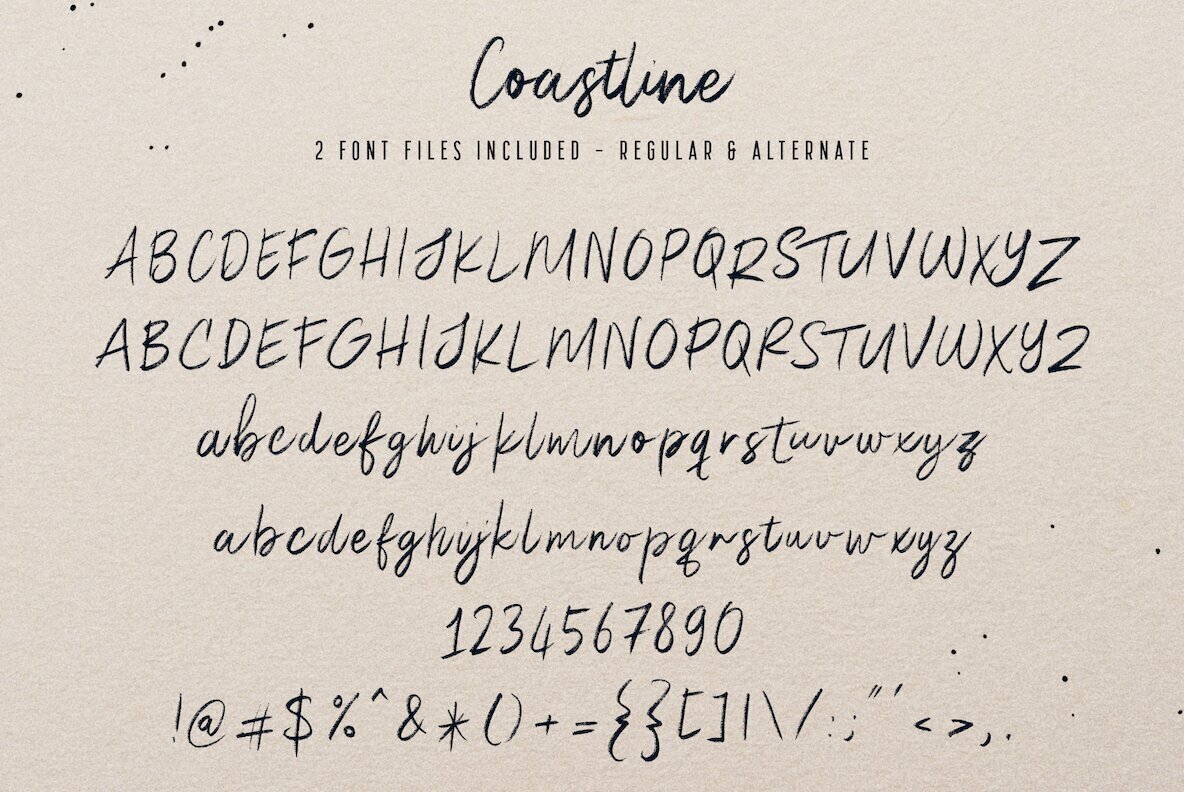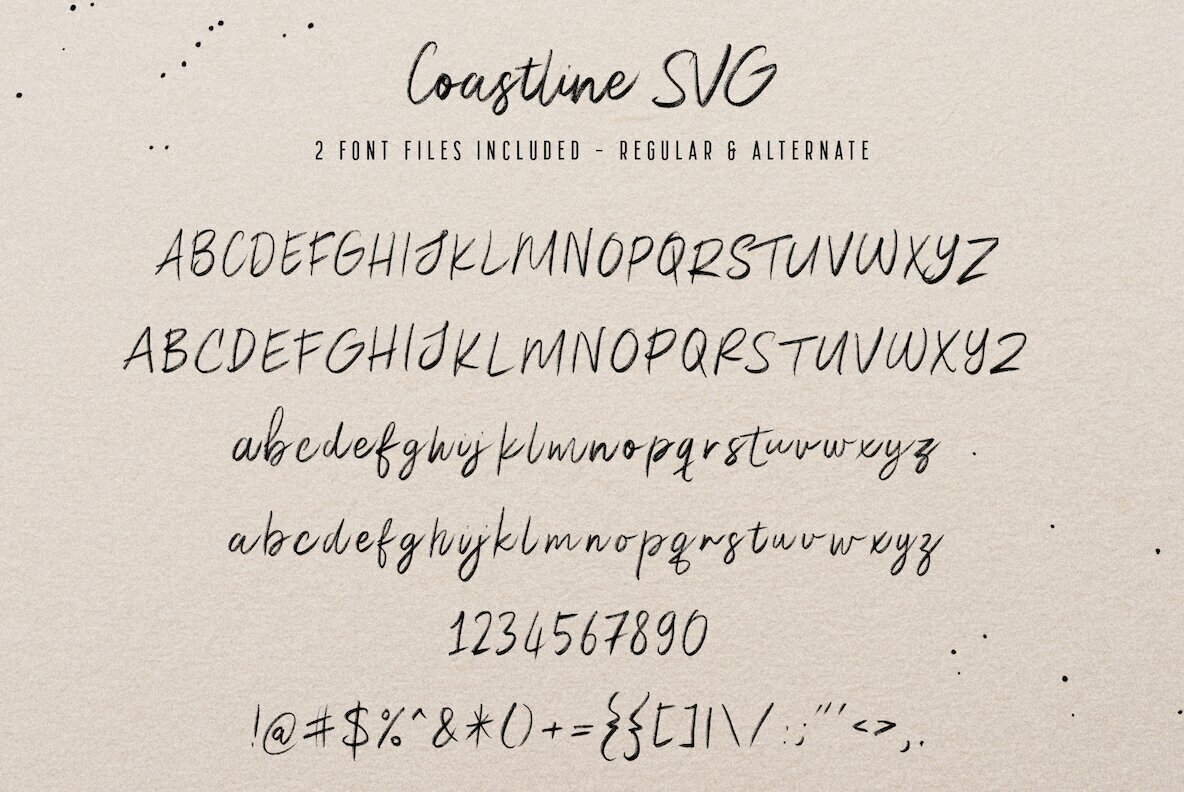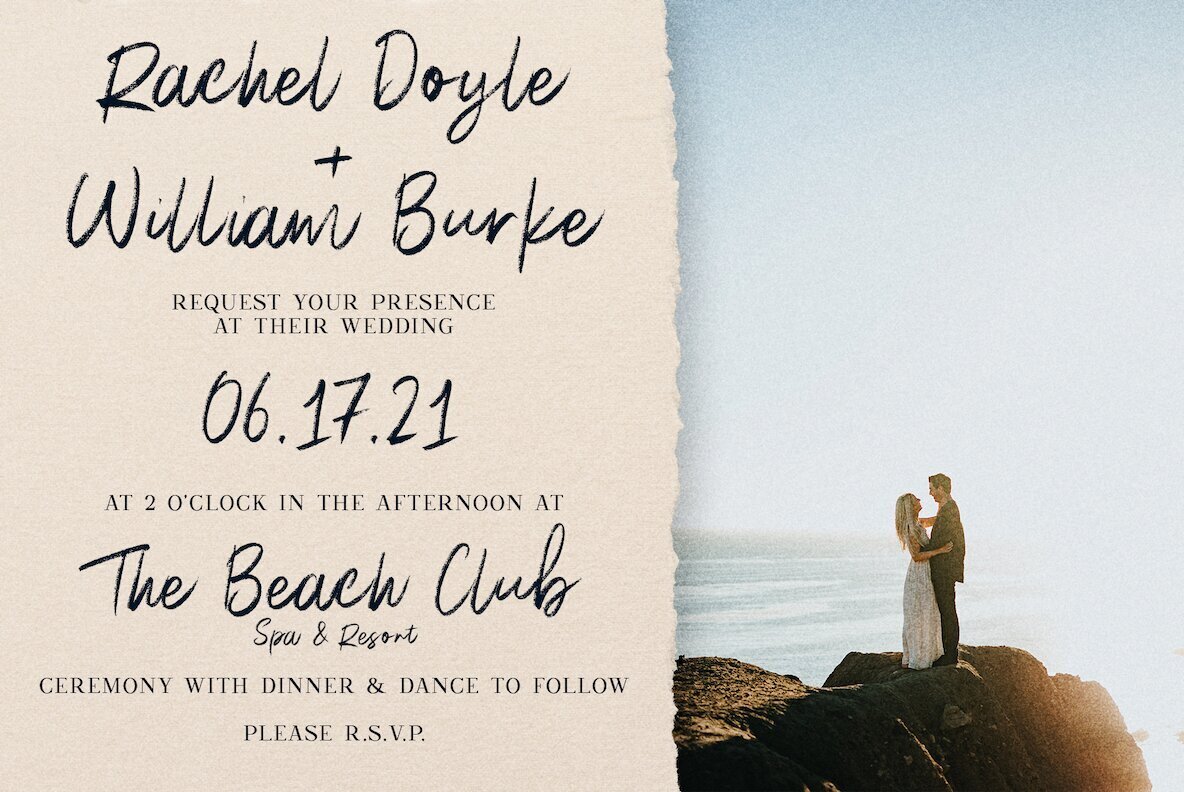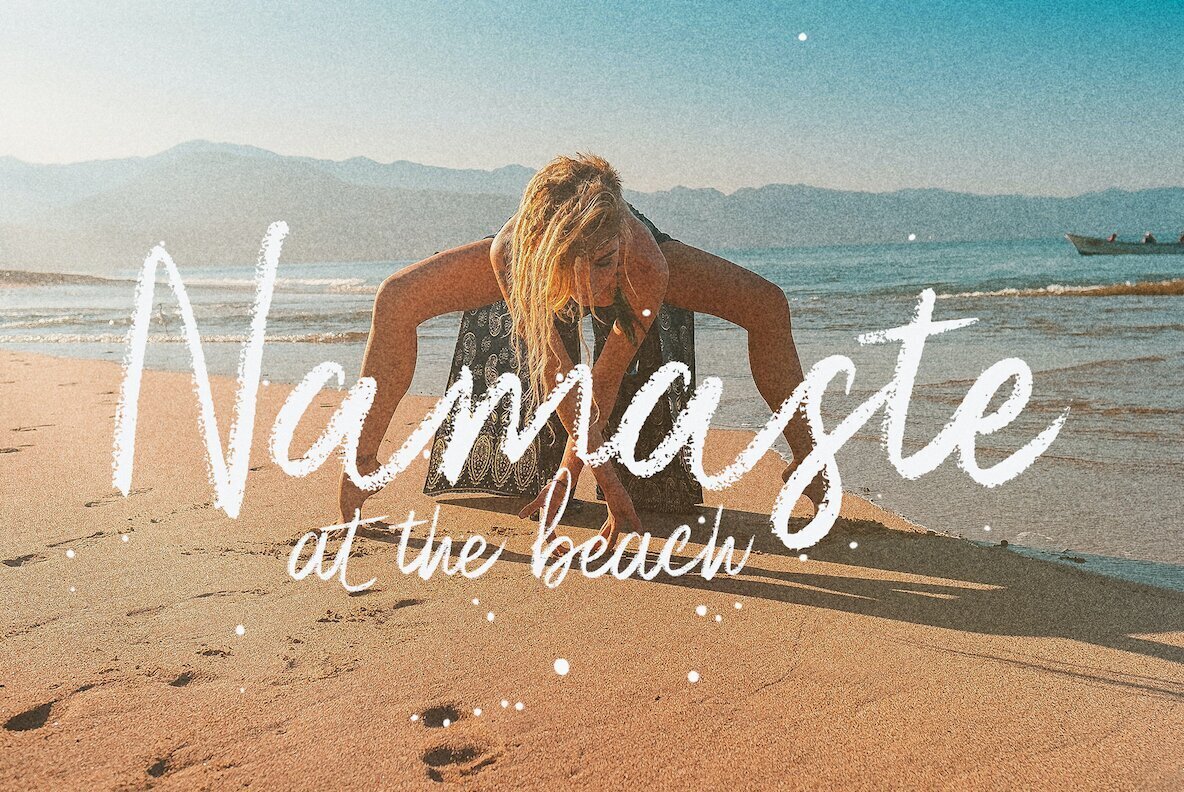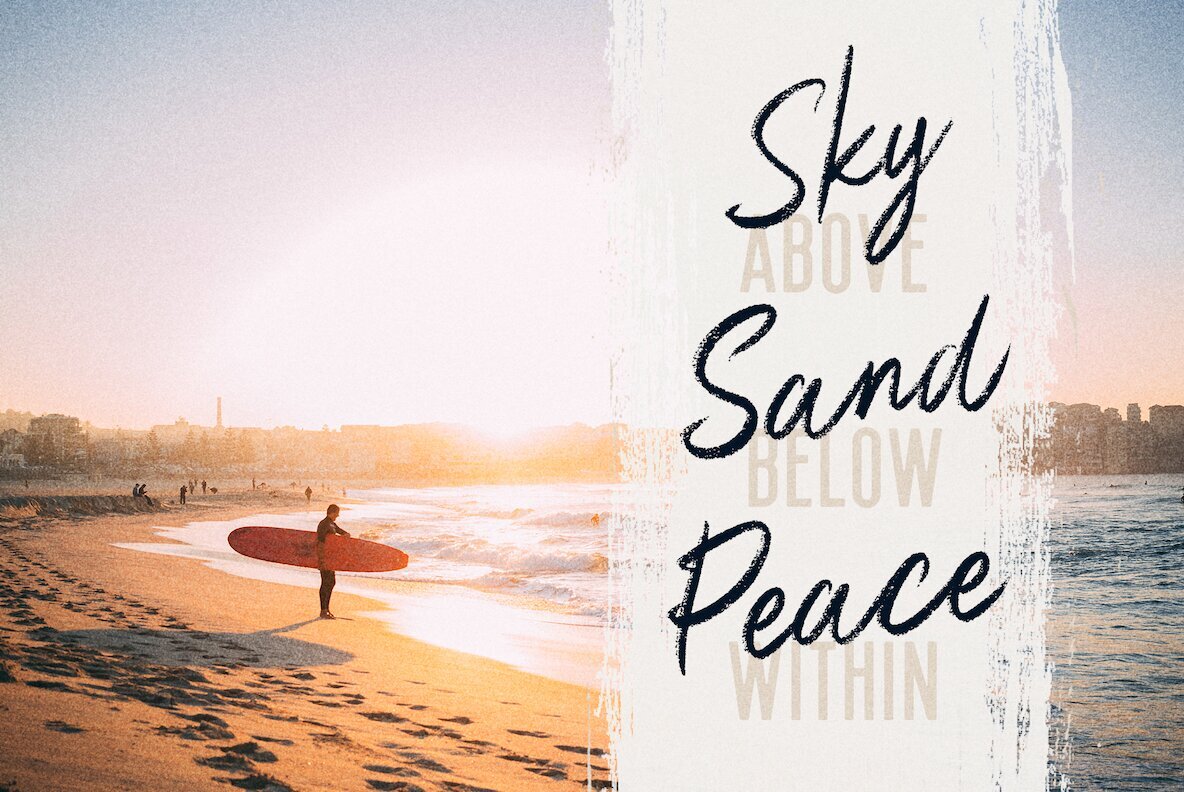
Coastline SVG Font
Coastline - A textured script typeface which features regular & alternate fonts in both .otf and SVG format!
You can choose whether you want the heavily textured result with the SVG version, or a more solid design with the .otf font, and also interchange your letters using the Alternates for a more natural handwritten look.
Coastline is great for countless areas of design and works equally well for creating quotes, posts & advertisements as well as physical goods like apparel, posters & housewares.